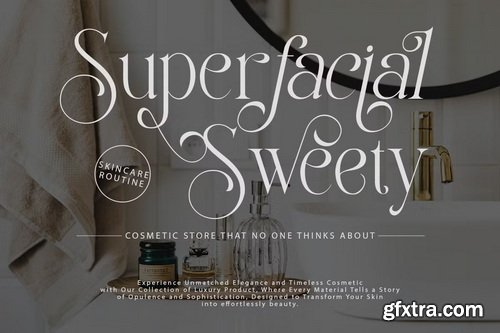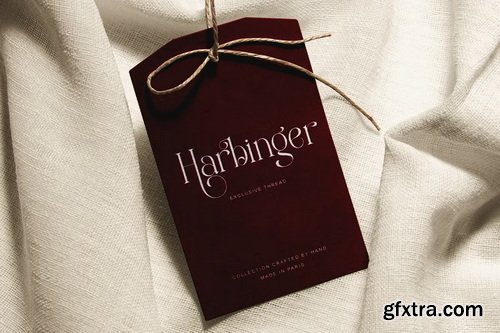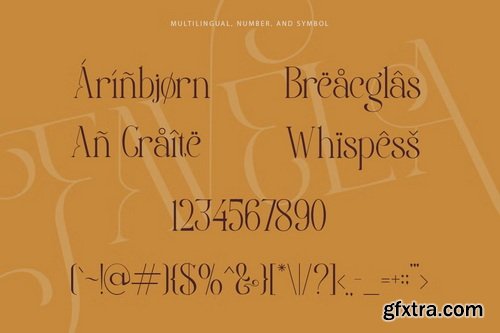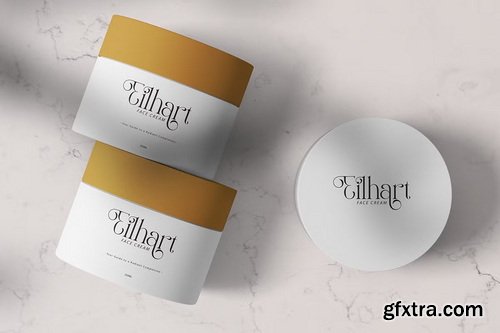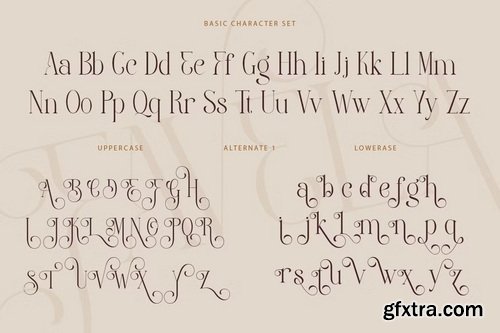
CreativeMarket - Favela Font
Favela, elegant serif typeface. Favela** has many stylish alternates with swashes that can make your lettering / logotype become more attractive. The clean and neat of a serif combined with the swirl swashes makes this font one of a kind! Very suitable for magazine, headline, website, ads, product package and all type of design project you have.